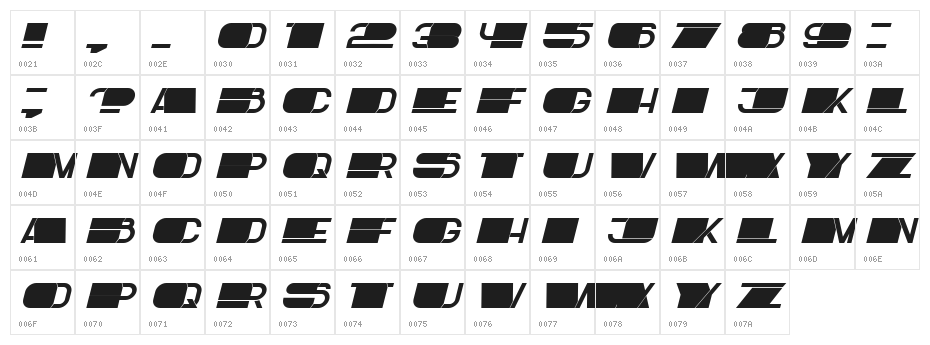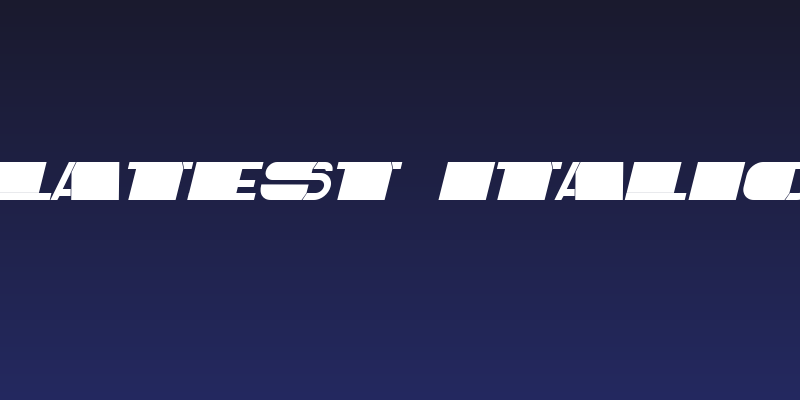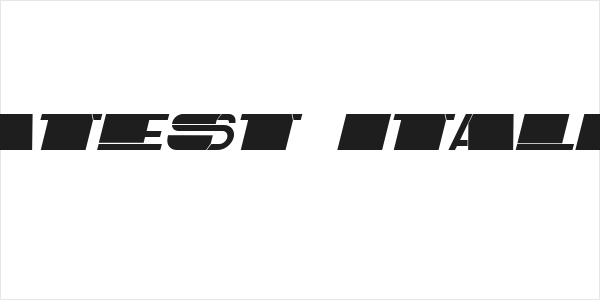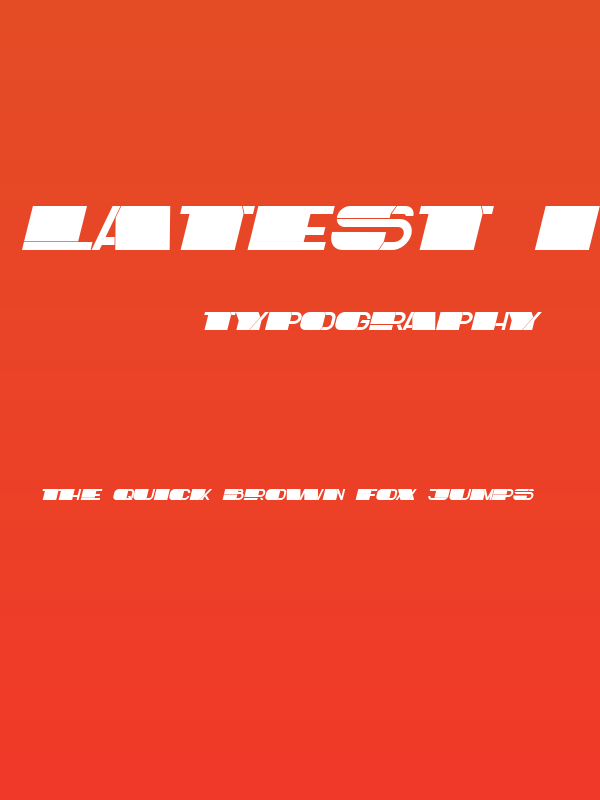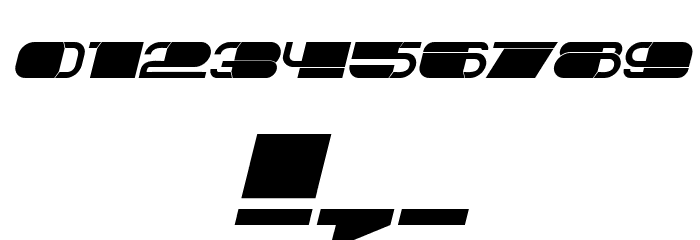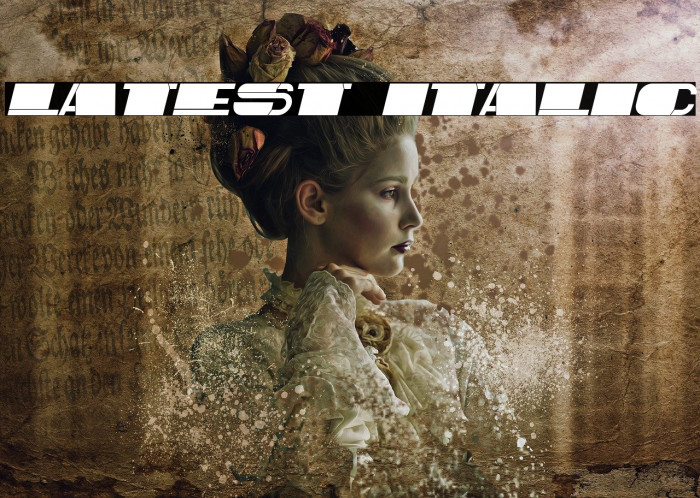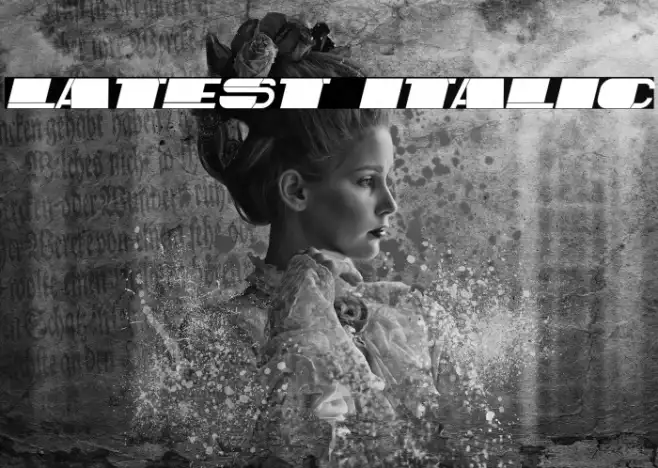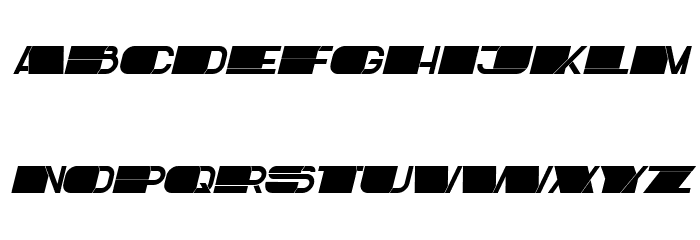
Latest Italic Font
Latest Italic Description
This font features a bold and dynamic style with a futuristic flair. The characters are italicized, giving a sense of motion and speed. Each letter is crafted with a unique geometric design, incorporating sharp angles and smooth curves. The font has a strong presence, making it ideal for attention-grabbing headlines or logos. The numbers and special characters maintain the same bold and angular aesthetic, ensuring consistency across all elements. The overall look is modern and sleek, perfect for projects that require a cutting-edge and innovative appearance.
| Proposed Projects | Ideal for technology branding, sports team logos, futuristic posters, and modern advertising campaigns. |